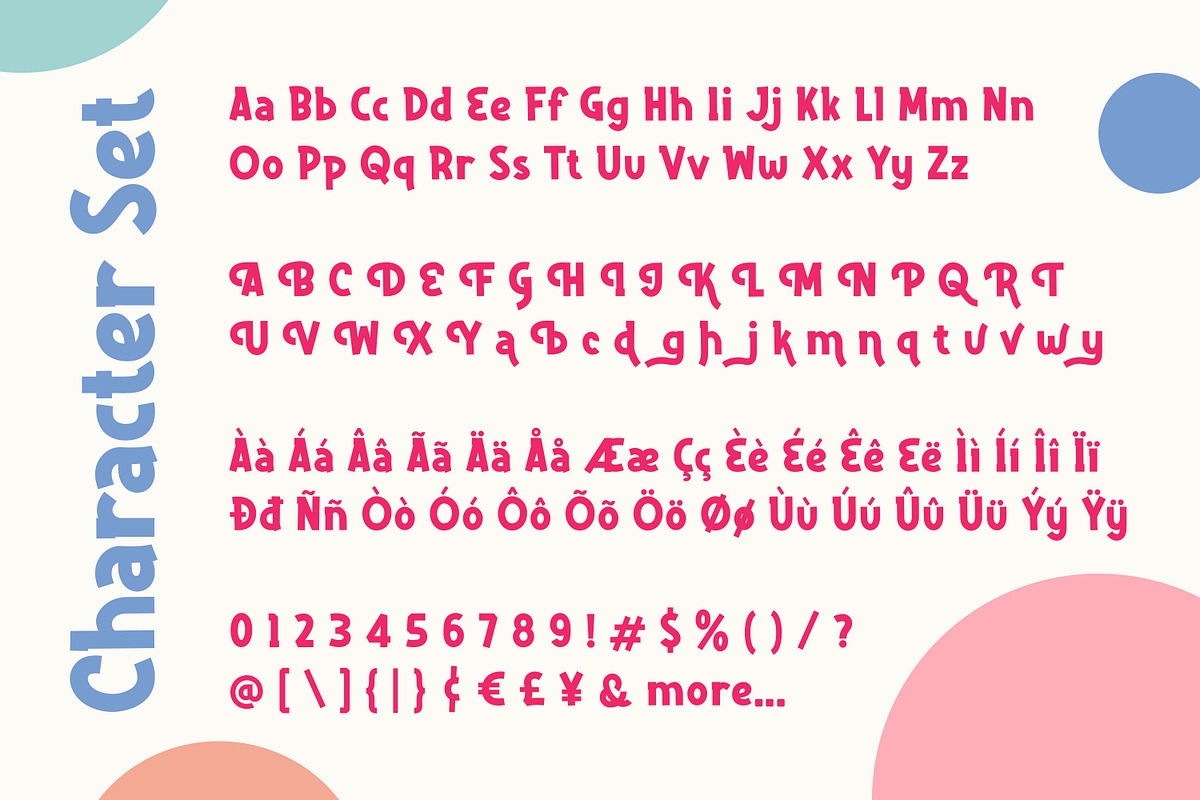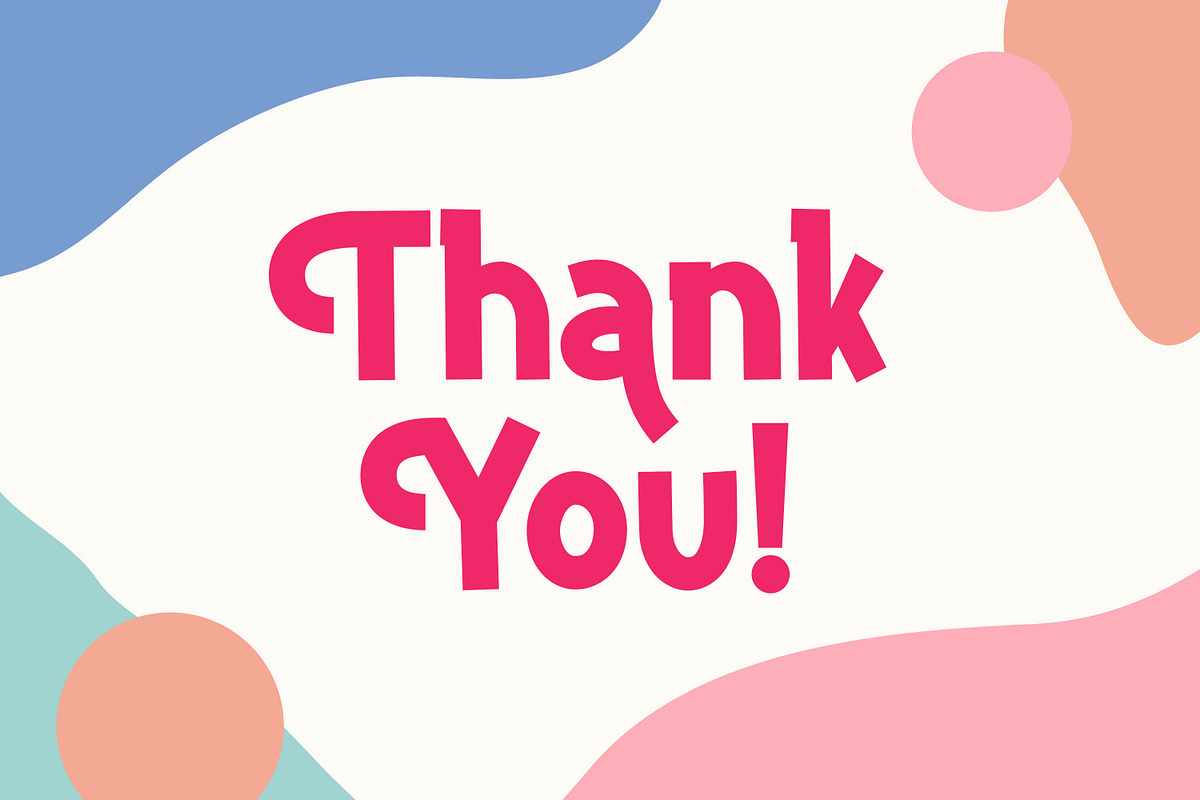
Delninoys - Stylish playful Sans
Delninoys is a cute display font, carefully created to become a true favorite. Its casual charm makes it appear wonderfully down-to-earth, readable and, ultimately, incredibly versatile. Delninoys will look outstanding in any context, whether it’s being used on busy backgrounds or as a standalone headline!